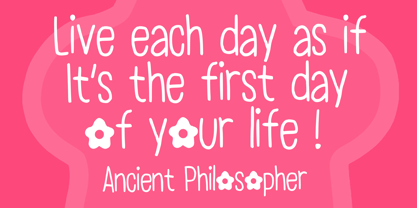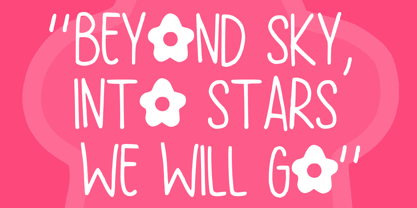
Blooming Sakura
La familia tipográfica Blooming Sakura fue diseñada por Gabriel Valentinus y publicada por Mvmet. Blooming Sakura contiene 1 estilos.
Blooming Sakura is a fun font with flower decorative twist. You can use it for anything ranging from regular typing notes, to t-shirts, kids’ book designs, greeting cards, stickers, posters, or anything that needs a casual touch. Fall in love with its incredible style and use it to create lovely designs!